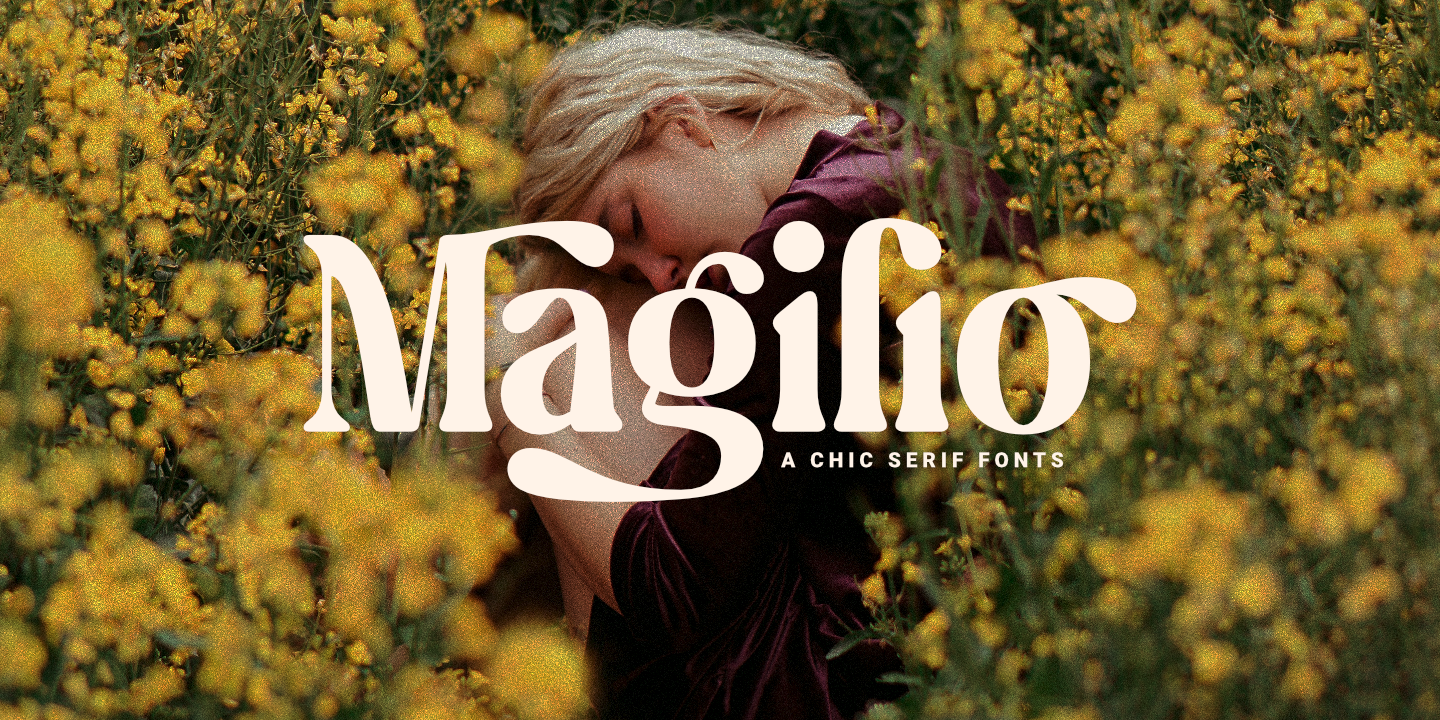
Magilio Font is perfect for magic show branding, illusionist performance posters, mystical entertainment venues, fantasy theater signage, magical academy logos, enchanted product packaging, wizard-themed restaurants, and spellbinding marketing campaigns. This enchanting typeface excels in applications where magical wonder and mystical entertainment are essential.
What makes Magilio Font so exciting is its spellbinding ability to channel the mysterious art of magic and illusion through elegant, wand-inspired letterforms that embody the theatrical grandeur and mystical allure of professional stage magic. The font features graceful character shapes with magical flourishes and illusionist styling that evoke images of swirling capes, sparkling stage lights, and the captivating wonder of impossible feats. Its performance-focused design philosophy combines theatrical authenticity with contemporary sophistication, making it perfect for entertainment brands seeking to convey magical expertise, theatrical wonder, and connection to magic performance communities and illusionist arts culture.
Magilio Font belongs to the magical display font family, specifically designed for entertainment and mystical performance-themed branding applications. This typeface family emphasizes enchanting visual impact through illusion-inspired styling and magical character elements, ensuring authentic mystical presentation across various entertainment and theatrical magic-focused design projects.
Create enchanting magical experiences with Magilio Font Free Download, a typeface that embodies the captivating artistry of stage magic and illusionist performance. This mesmerizing font delivers exceptional wonder for entertainment applications, featuring comprehensive character sets with magical symbols and mystical punctuation marks that capture the essence of theatrical illusion and performance magic. Its elegantly crafted letterforms maintain excellent readability while preserving the authentic magical aesthetic across various sizes, from small ticket stubs to grand theater marquee displays. The font's distinctive mystical personality makes it invaluable for designers creating entertainment brands, magic show materials, and mystical content where conveying wonder, theatrical sophistication, and magical artistry is crucial for engaging audiences seeking captivating entertainment experiences and professional magic performances.